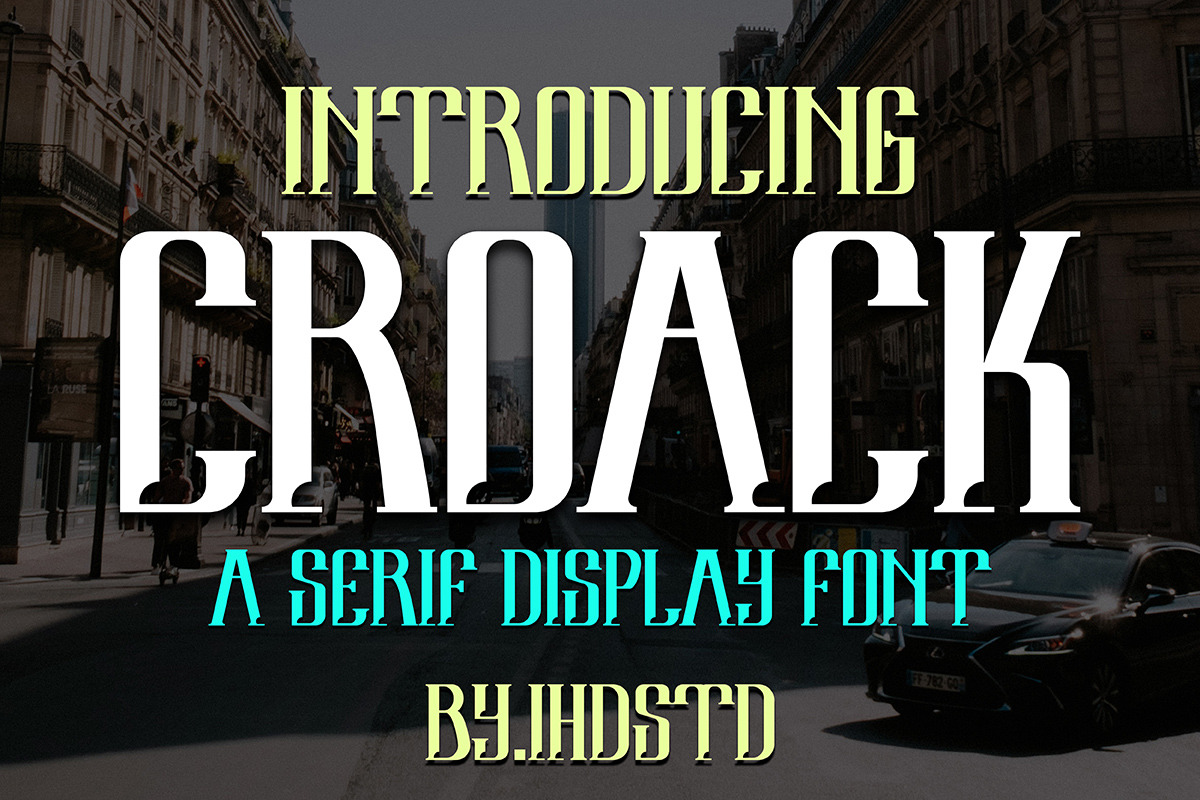
Croack Serif Display Font
font is our new item that suitable for your Posters.
Great for Logo, Poster, Sticker, Jersey, Invitation Card, Brochure, etc.